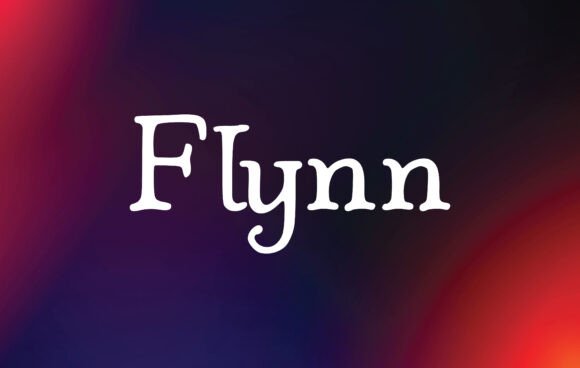
Introducing Flynn Font: Elevate Your Creative Projects with a Lovely Handwritten Style
In the world of typography, a font can make all the difference in bringing your creative ideas to life. If you’re looking for a beautiful, handwritten font that can add a personal touch to your projects, look no further than Flynn Font. This lovely font has the potential to take your designs to the highest level, making it an excellent choice for creating eye-catching logos, branding, and quotes.
What Makes Flynn Font Stand Out?
- Handwritten Style: Flynn Font boasts a beautiful, handwritten style that adds a touch of elegance and sophistication to any design.
- Versatility: This font is perfect for a wide range of creative projects, from logos and branding to quotes and social media graphics.
- Easy to Read: Despite its elegant style, Flynn Font is easy to read, making it an excellent choice for body text and captions.
- Unique Character: Flynn Font has a unique character that sets it apart from other fonts, ensuring your designs stand out from the crowd.
10 Creative Ways to Use Flynn Font
- Logo Design: Create a stunning logo for your business or brand using Flynn Font. Its elegant style makes it perfect for companies that want to convey a sense of sophistication and luxury.
- Branding: Use Flynn Font to create a consistent brand identity across all your marketing materials, from business cards to brochures.
- Quotes and Inspirational Messages: Add a touch of elegance to your quotes and inspirational messages with Flynn Font. Its beautiful style makes it perfect for social media graphics, posters, and flyers.
- Social Media Graphics: Use Flynn Font to create eye-catching social media graphics that will help you stand out from the crowd.
- Wedding Invitations: Add a touch of romance to your wedding invitations with Flynn Font. Its elegant style makes it perfect for formal events.
- Packaging Design: Use Flynn Font to create beautiful packaging designs that will make your products stand out on store shelves.
- Advertising: Create stunning advertisements with Flynn Font. Its unique character makes it perfect for grabbing the attention of potential customers.
- Book Covers: Use Flynn Font to create beautiful book covers that will make your book stand out from the competition.
- Magazine Layouts: Add a touch of elegance to your magazine layouts with Flynn Font. Its easy-to-read style makes it perfect for body text.
- Signage: Use Flynn Font to create beautiful signage that will make your business or event stand out.
Typographic Features of Flynn Font
Flynn Font comes with a range of typographic features that make it perfect for creative projects. Some of its notable features include:
- OpenType Features: Flynn Font supports OpenType features, including ligatures, stylistic alternates, and swashes.
- Multilingual Support: This font supports multiple languages, making it perfect for global brands and businesses.
- Adjustable Line Spacing: Flynn Font allows for adjustable line spacing, making it easy to customize the font to your needs.
How Flynn Font Compares to Other Fonts
So, how does Flynn Font compare to other fonts on the market? Here are a few key differences:
- Unique Style: Flynn Font has a unique style that sets it apart from other handwritten fonts.
- Ease of Use: Unlike some other fonts, Flynn Font is easy to use and doesn’t require a lot of technical expertise.
- Customization: Flynn Font is highly customizable, making it easy to tailor the font to your specific needs.
Tips for Using Flynn Font
Here are a few tips for using Flynn Font in your creative projects:
- Pair it with a Sans-Serif Font: Pair Flynn Font with a sans-serif font to create a beautiful contrast.
- Experiment with Colors: Don’t be afraid to experiment with different colors to find the perfect combination for your design.
- Use it for Headings: Use Flynn Font for headings and titles to add a touch of elegance to your designs.
In conclusion, Flynn Font is a beautiful, handwritten font that has the potential to take your creative ideas to the highest level. Its elegant style, versatility, and ease of use make it perfect for a wide range of creative projects, from logos and branding to quotes and social media graphics. With its range of typographic features and customization options, Flynn Font is an excellent choice for anyone looking to add a touch of sophistication to their designs.